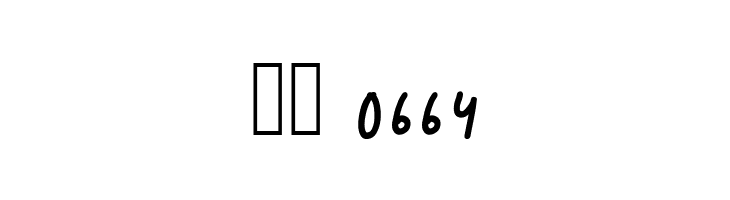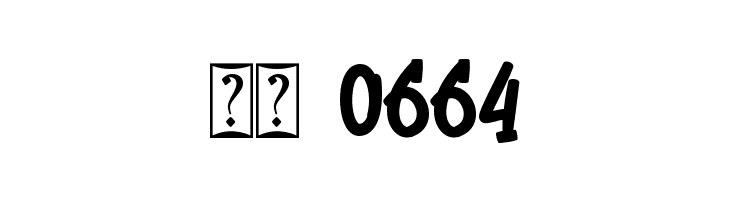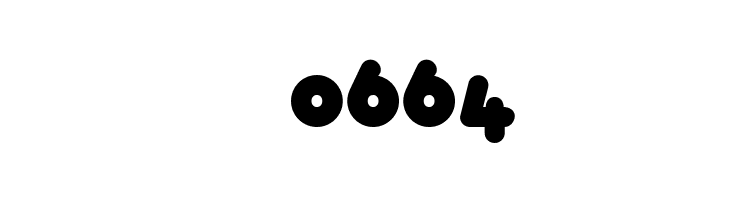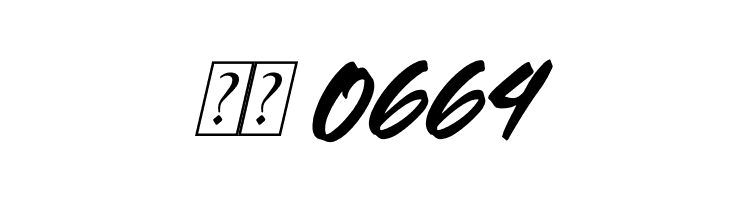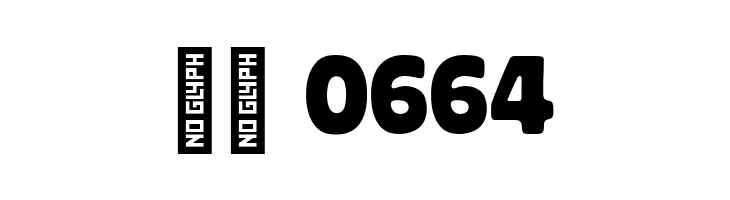
A playful and whimsical font with bold, rounded forms and decorative elements.
A playful, bubbly font with a hand-drawn, whimsical style.
A playful, bubbly font with rounded, hand-drawn characters.
A modern, geometric font with rounded edges and consistent spacing.
A playful, bold font with rounded, bubbly characters.
A modern, geometric font with rounded edges and balanced spacing.
A playful, bubbly font with a hand-drawn, whimsical style.
A bold, playful font with a bubbly, hand-drawn style and outlined characters.
A playful, handwritten font with bubbly, rounded letterforms.
A bold, playful font with rounded edges and a bubbly appearance.
A playful, bold typeface with rounded, bubble-like characters.
A flowing, elegant cursive font with graceful loops and smooth connections.
A delicate, handwritten cursive font with an elegant and airy feel.
A bold, dynamic script font with a fluid, connected style.
A playful, casual handwritten font with smooth, rounded edges.
A graceful script font with flowing cursive letters and intricate swashes.
A playful, handwritten font with fluid and organic strokes.
A playful, handwritten font with fluid strokes and a casual vibe.
An elegant script font with flowing curves and decorative swirls.
A dynamic, cursive script font with a natural, handwritten style.
A dynamic and elegant script font with fluid, connected characters.
A dynamic, expressive handwritten font with fluid, interconnected strokes.
A modern, high-contrast font with geometric and decorative elements.
A modern, geometric font with bold, rounded uppercase letters and abstract special characters.
A playful, bold font with rounded edges and a slightly condensed form.
An elegant, flowing script font with ornate uppercase and smooth lowercase letters.
A bold, blackletter font with intricate, angular letterforms and high contrast.
A bold, decorative serif font with intricate swirls and embellishments.
An elegant, flowing script font with intricate loops and swirls.
A bold, dynamic handwritten font with a playful yet assertive style.
An elegant, flowing script font with a sophisticated, handwritten style.
A decorative cursive font with elegant loops and a handwritten style.
A lively script font with elegant, flowing cursive strokes.
Bold, decorative font with a playful style.